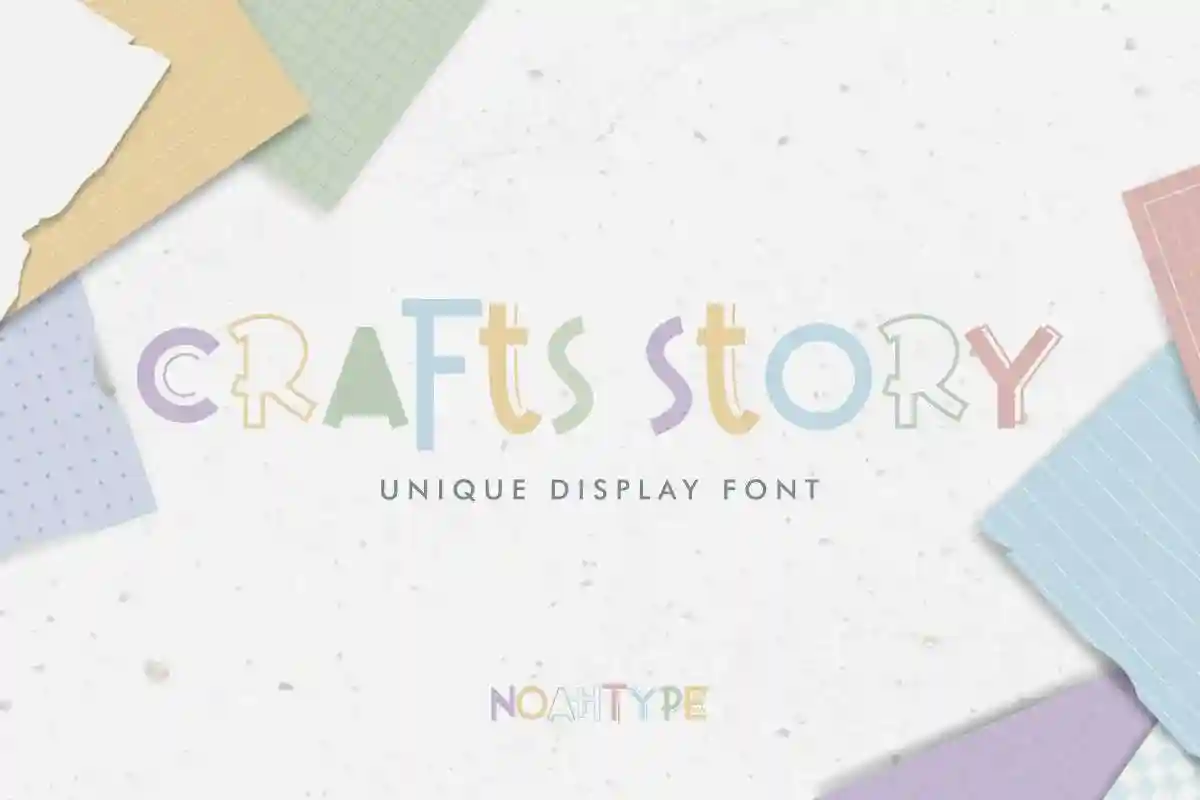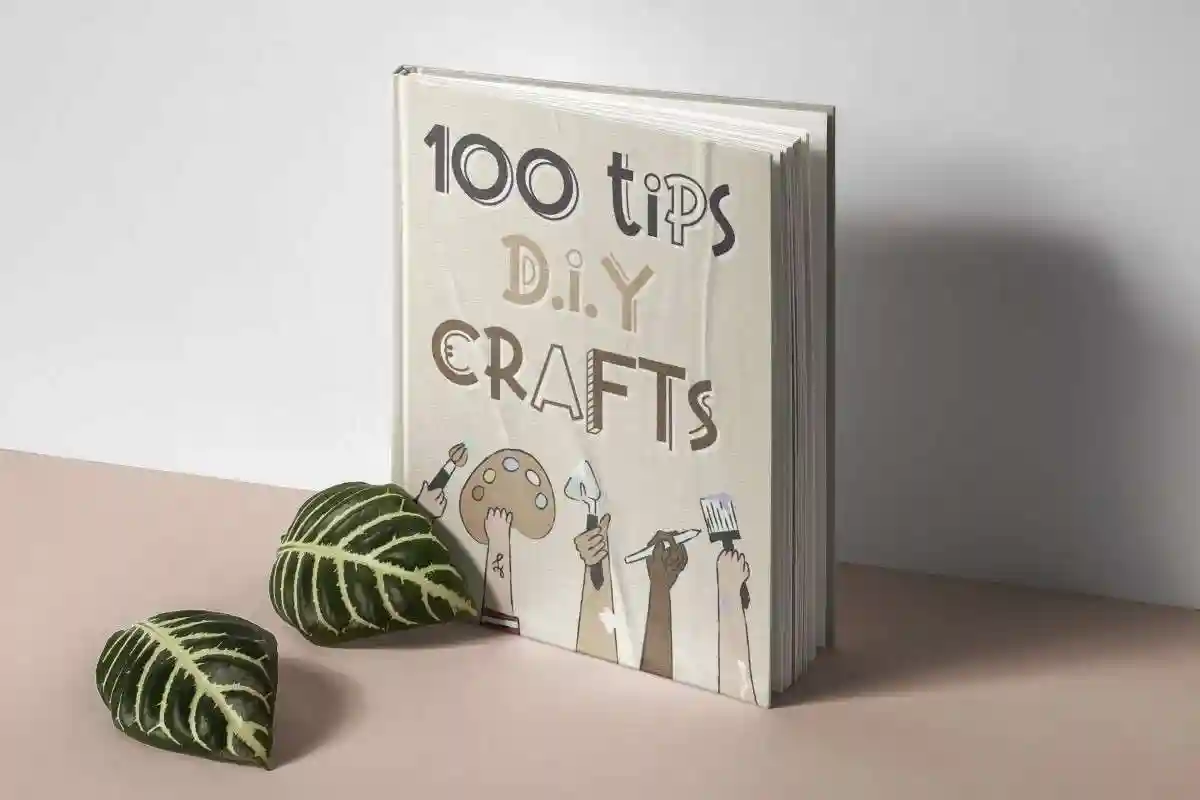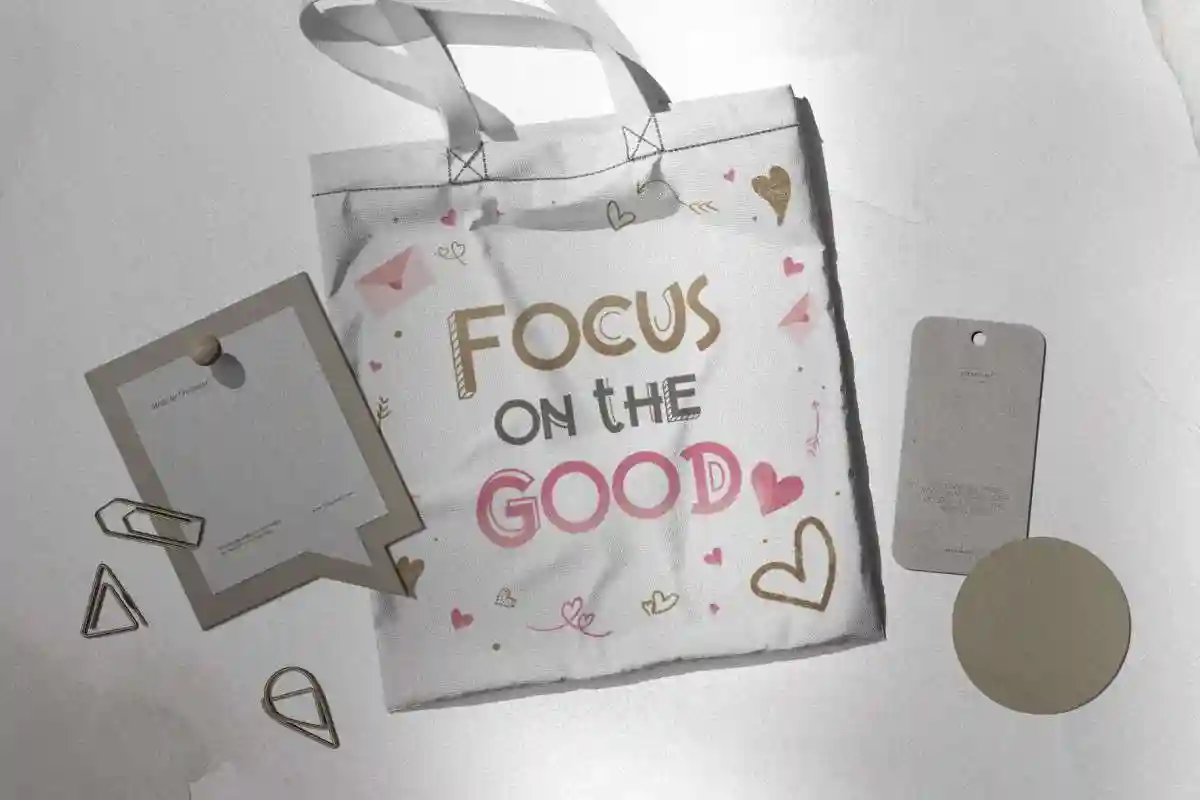
Crafts Story Font is a lovely fun fancy display font with groovy, quirk and energic style on its letters. This fancy font has typical style the font has a unique striped line, funny flow and unique style with a clean look that bring significance while easily to read. It will be amazing for any project : movies, cartoon, comic, fashion, food/beverage brands, games, handicraft, writers story and many more
Whether you’re designing for children’s books, product packaging, branding, scrapbooking, greeting cards, DIY projects, or home decor prints – Crafts Story is your ideal creative companion. With its quirky shapes and delightful curves, this font captures the spirit of handmade artistry and storytelling nostalgia.